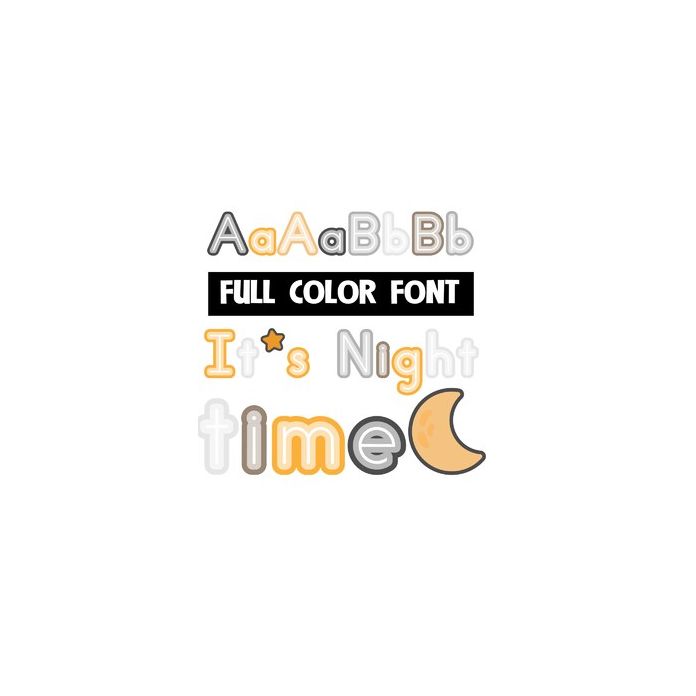
This full-color font features pale blue, orange, red, and yellow flowers and lettering. There is an alt version upper and lowercase that you can access through Silhouette's glyph map. Type the triangle brackets, the accent and the tilde to get a full-moon, crescent moon, and stars.